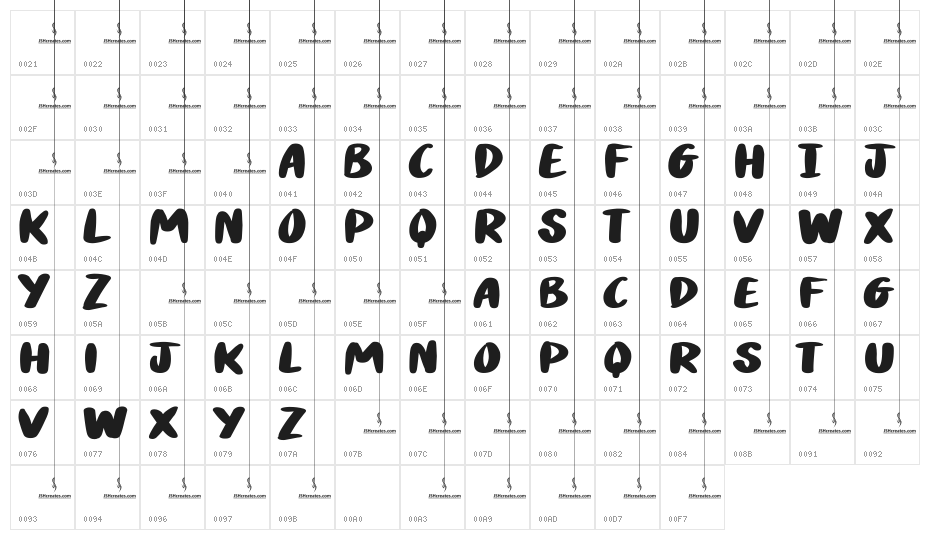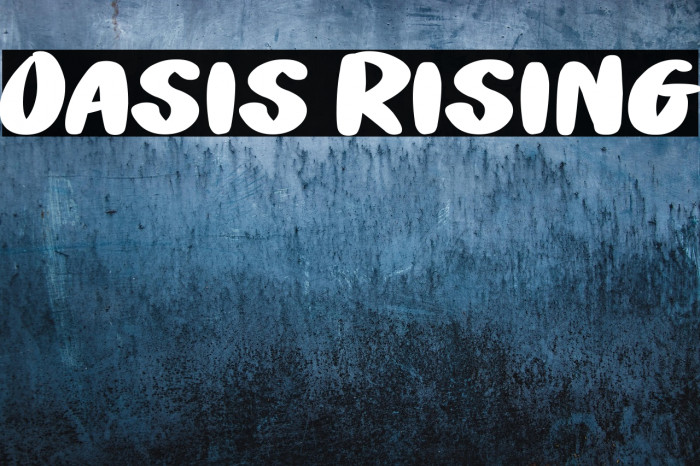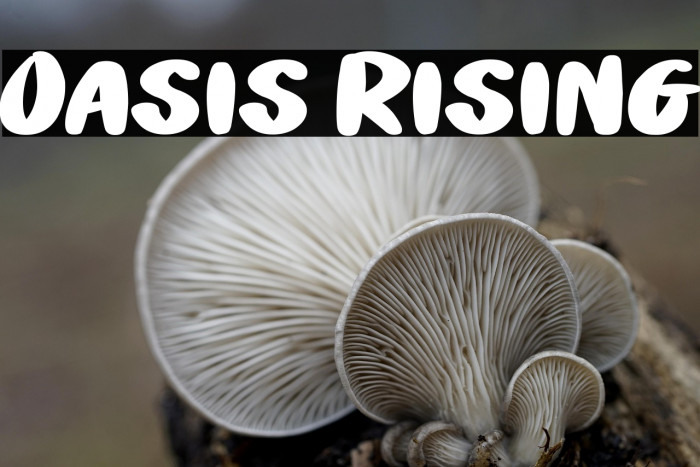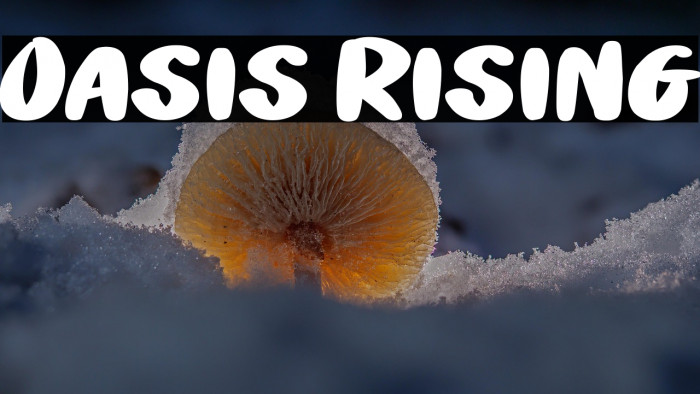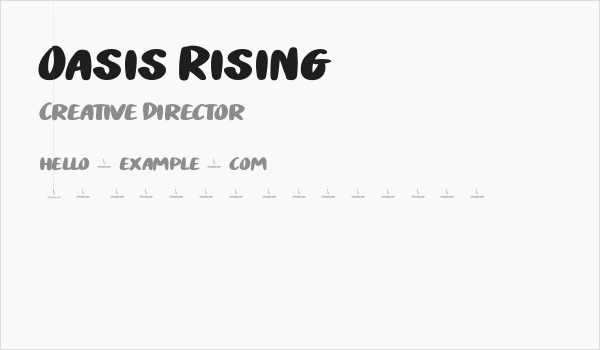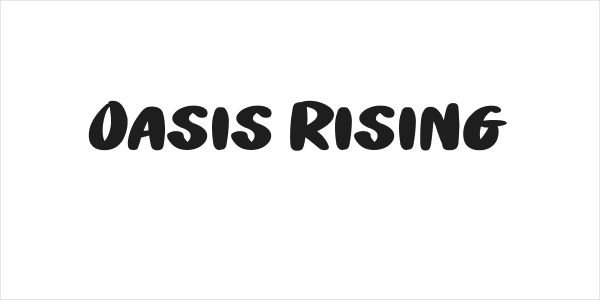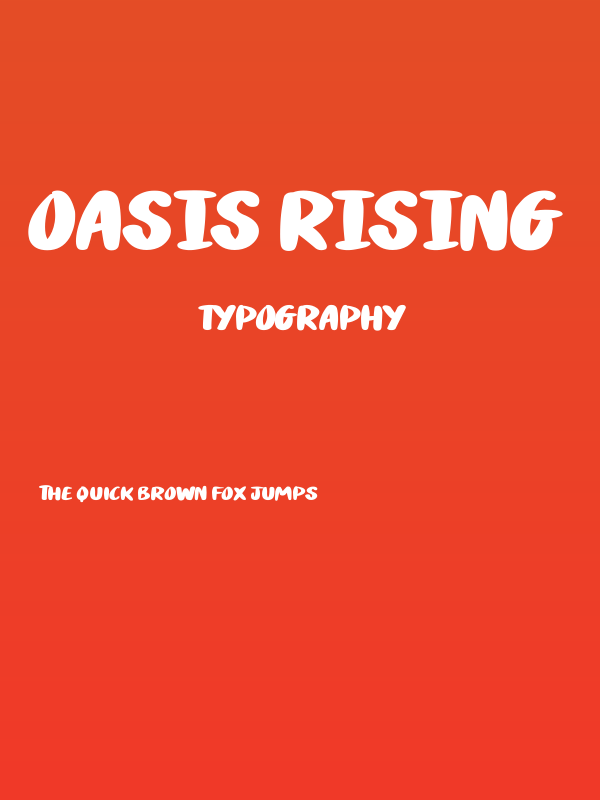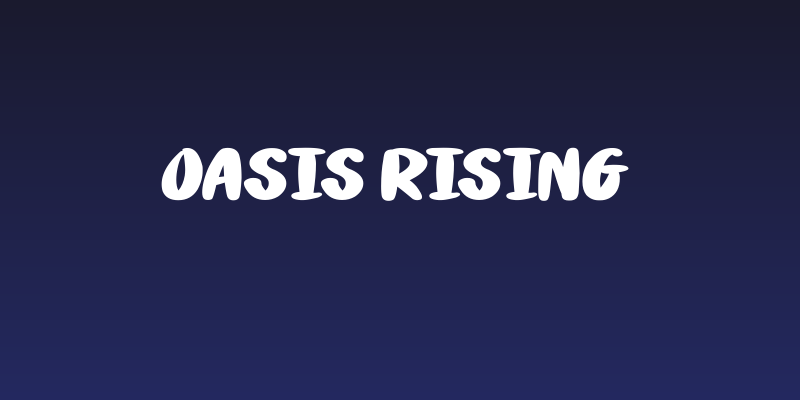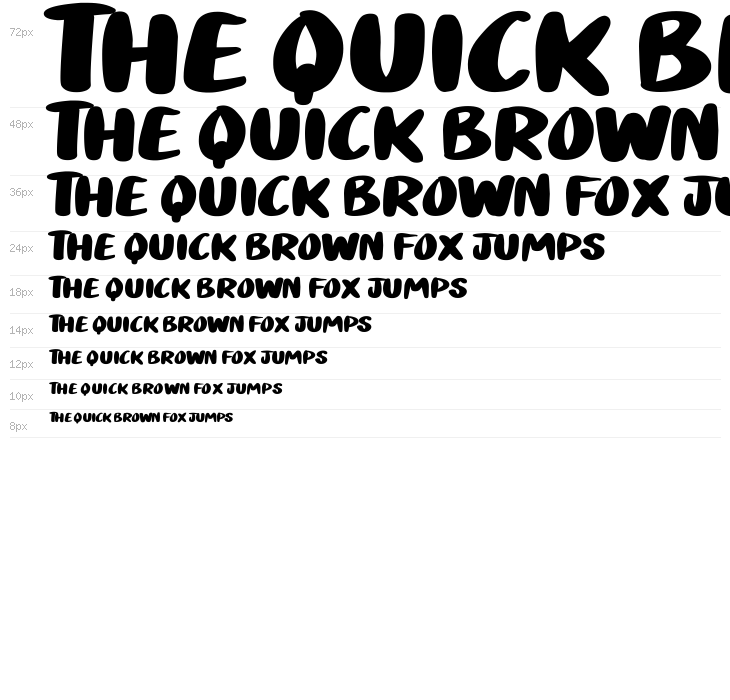
Oasis Rising Font
Oasis Rising Description
This bold and expressive font features a handwritten style with thick, rounded strokes that convey a sense of energy and playfulness. The characters are slightly slanted, adding a dynamic feel to the text. The uppercase letters are prominent and assertive, while the lowercase letters maintain a consistent flow with smooth curves. The overall appearance is casual yet impactful, making it suitable for designs that require a personal touch. The font's unique style is characterized by its bold weight and slightly condensed width, creating a strong visual presence.
| Proposed Projects | Ideal for branding, posters, social media graphics, and any project that requires a bold, personal touch. |